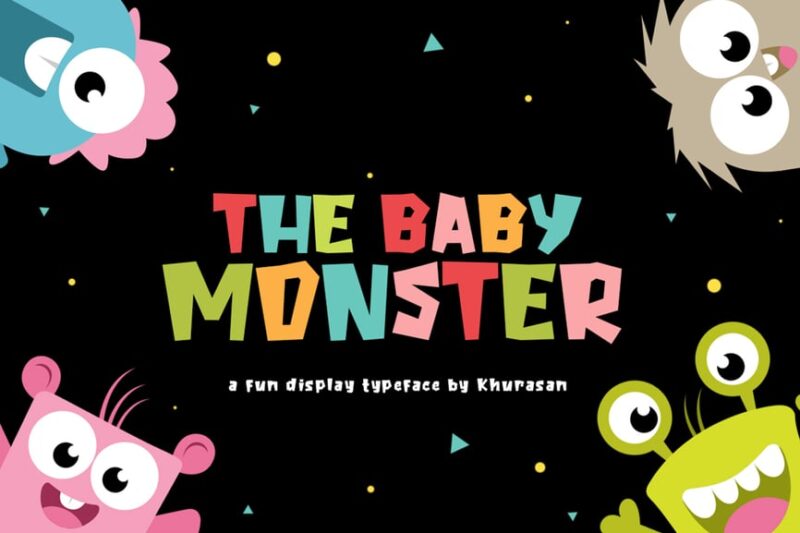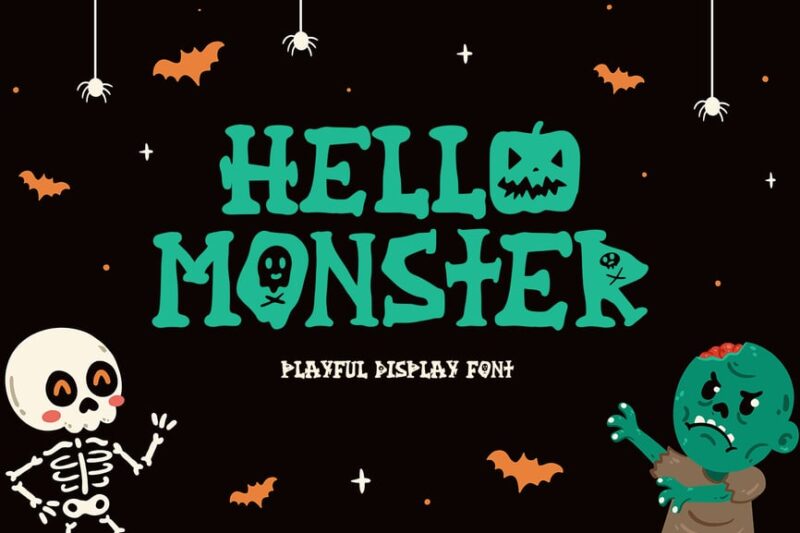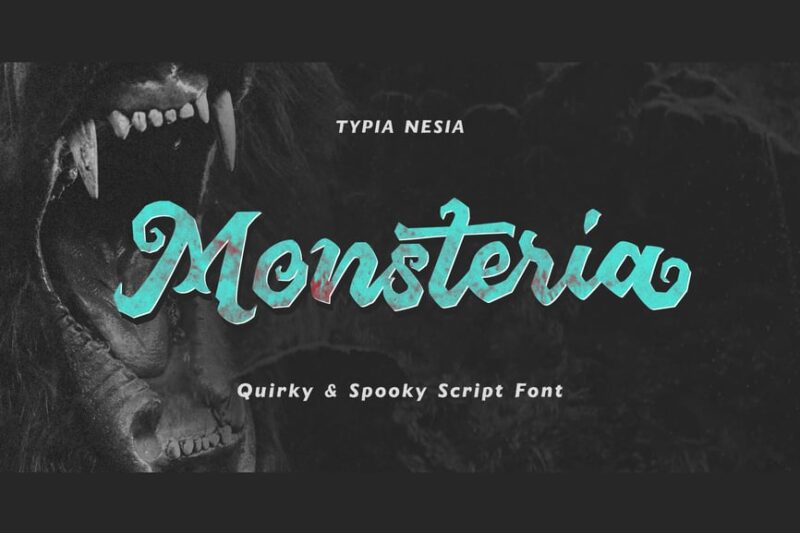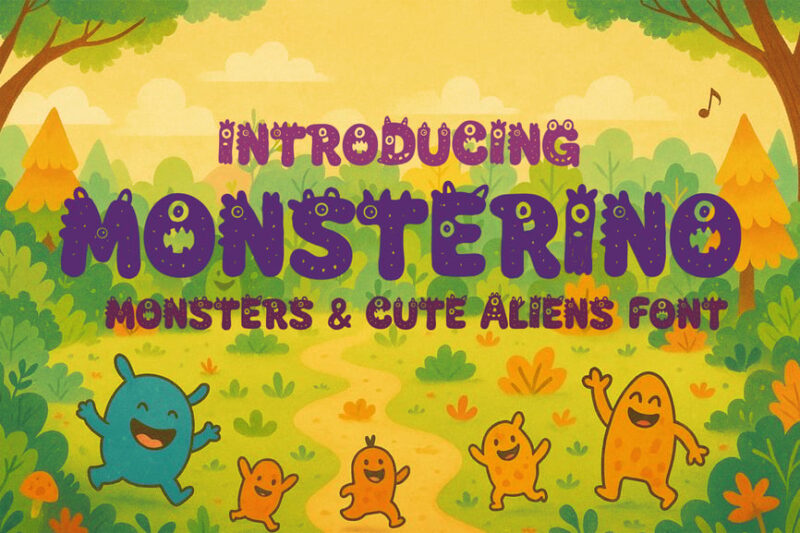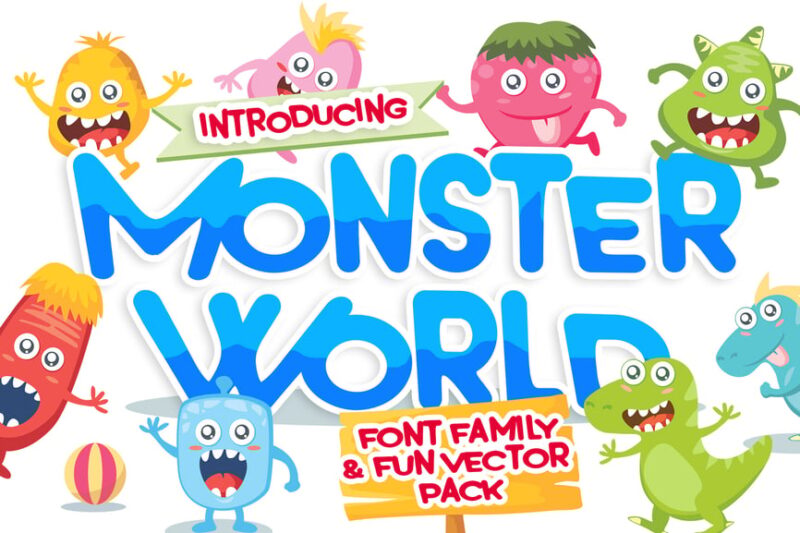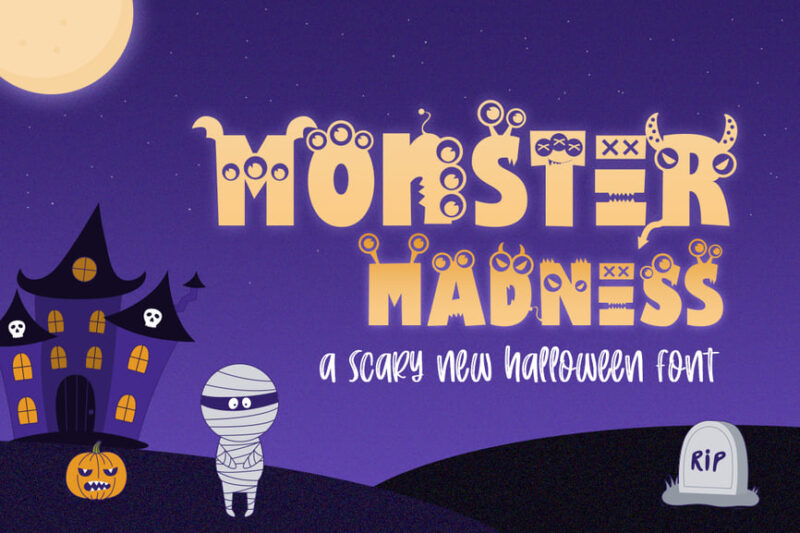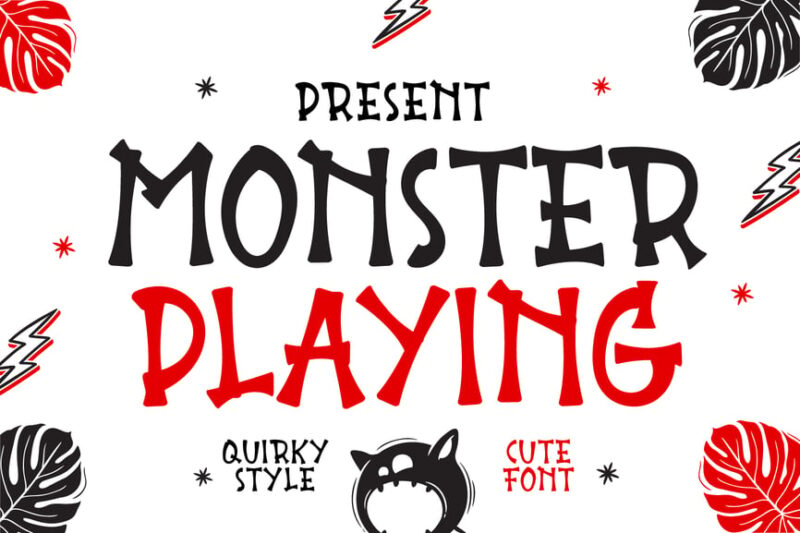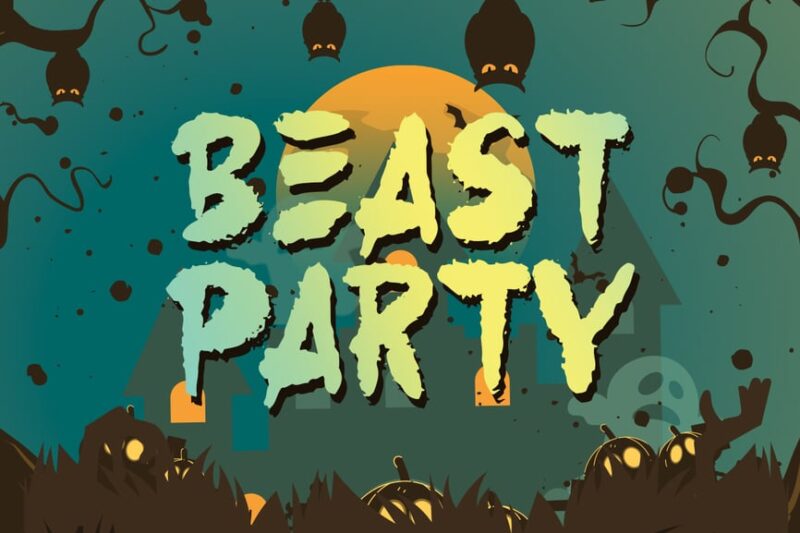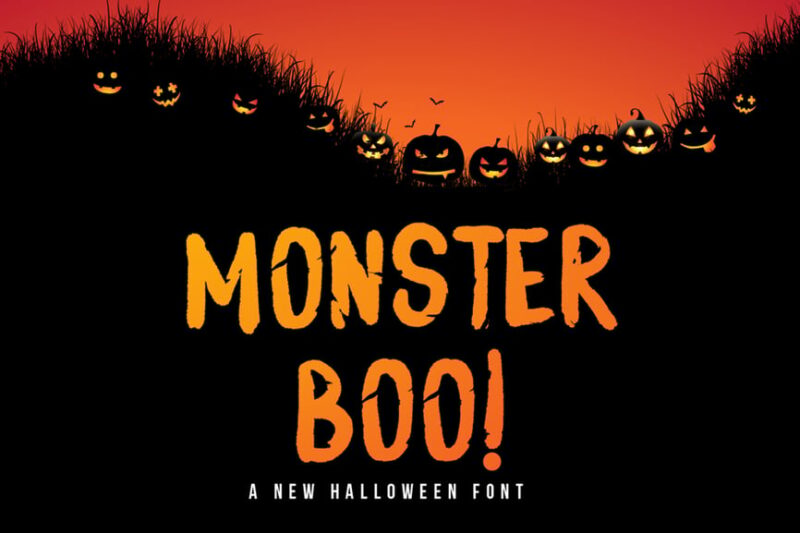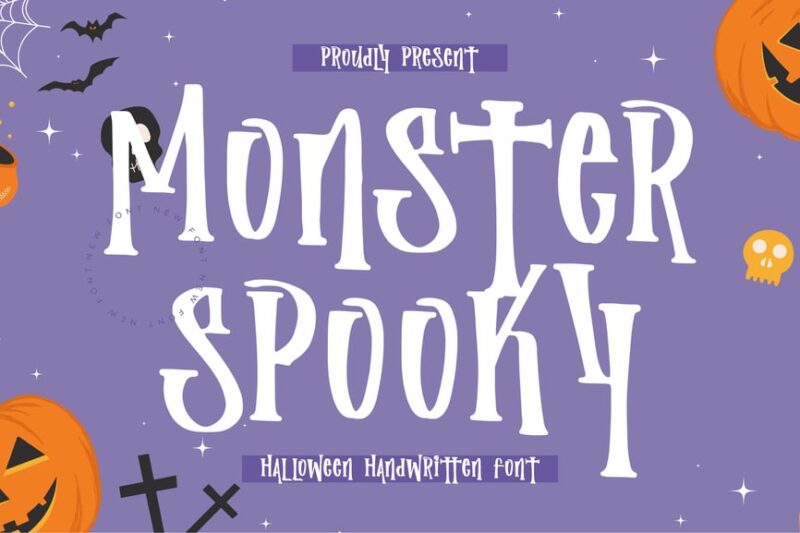
The shadows are lengthening, and somewhere in the depths of your font library, something sinister is stirring. Monster fonts have crawled out from their typographic crypts to dominate everything from streaming horror series to immersive haunted attractions, proving that great design doesn’t just communicate – it terrifies, thrills, and leaves lasting impressions burned into memory.
These aren’t your grandmother’s Gothic letters. Today’s monster typography pulses with digital blood, writhes with organic textures, and shapeshifts between elegance and chaos in ways that would make classic horror masters weep with envy. They’ve evolved beyond simple Halloween fonts into sophisticated tools for brands that dare to embrace the darkness.
What makes monster fonts so irresistibly powerful is their ability to tap into our primal fears while simultaneously drawing us closer. They whisper promises of forbidden knowledge, hint at ancient curses, and suggest that behind every beautifully rendered letter lurk secrets too terrible – and too fascinating – to ignore.
Ready to unleash some typographic nightmares? We’re about to explore the most hauntingly beautiful monster fonts that are currently terrorizing design trends. Fair warning: once you see what these fonts can do, there’s no going back to boring typography!
The Most Spine-Chilling Monster Fonts of 2026
Let’s face it – not all monster fonts are created equally terrifying. Some whisper menacingly in the shadows, while others scream bloody murder from the rooftops. I’ve compiled a list of the most bone-chilling, absolutely monstrous fonts that are guaranteed to give your designs that perfect dose of horror-inspired personality.
Monster Mash
Monster Mash is a quirky and playful font that combines dinosaur and monster themes. It’s perfect for creating whimsical and fun designs, especially for children’s products or Halloween-themed projects.
The Baby Monster
The Baby Monster is a decorative sans-serif font with a mischievous and cute appeal. It’s ideal for designs targeting young audiences or for creating a lighthearted, slightly spooky atmosphere in graphic projects.
Horror Crazy Monster Fonts
This font set offers a range of scary and Halloween-inspired typefaces. Their lightning-like shapes are perfect for creating eerie and spine-chilling designs, these fonts are ideal for horror-themed projects, Halloween promotions, or any design requiring a spooky touch.
Hello Monster
Hello Monster is a decorative font that blends magical and enchanted elements. It’s perfect for creating whimsical, fantasy-inspired designs with a slightly monstrous twist, ideal for children’s books or magical-themed projects.
Monster Inside
Monster Inside is a distressed font that blends monstrous elements with a torn and ragged aesthetic. It’s ideal for creating chilling designs with a twist, perfect for horror projects or eerie, cold-inspired graphics.
Monstarize
Monstarize is a horror-inspired serif font designed for gaming and spooky themes. It combines elements of classic serif typography with monstrous details, making it perfect for game titles, horror movie posters, or any design requiring a blend of sophistication and terror.
Monsteria Spooky Script
Monsteria Spooky Script is a handwritten font that combines elements of death and mystery. Its flowing, eerie style makes it perfect for creating atmospheric designs for ghost stories, mystery novels, or spooky event invitations.
Monstermeld
Monstermeld is a decorative font that blends Halloween and evil themes. Its unique, melded style is perfect for creating eye-catching designs for horror events, scary movie titles, or any project requiring a bold, monstrous typeface.
Monster Cubby Font
Monster Cubby Font is a playful, decorative typeface that combines a bubbly feel with monster elements like horns or teeth. It’s ideal for creating fun, quirky designs for children’s menus, food-related Halloween events, or any project requiring a lighthearted, monstrous touch.
Monsterino Kid Font
Monsterino Kid Font is a cute and playful decorative typeface designed for children’s themes. It’s perfect for creating friendly monster characters, designing kids’ book covers, or adding a touch of whimsy to child-oriented projects.
Wicked Destiny
Wicked Destiny is a dripping font that embodies Halloween and scary themes. Its intricate, spooky design makes it ideal for creating atmospheric horror designs, eerie event posters, or any project requiring a touch of wickedness.
Monster World font & Fun Vector Pack
This package includes a monster-themed font and a set of fun vector illustrations. It’s perfect for creating cohesive, playful designs for children’s products, monster-themed events, or any project requiring a complete monster world aesthetic.
So experiment with these spine-chilling monster fonts in your own projects. Used thoughtfully, they create unforgettable designs that are guaranteed to raise goosebumps and leave lasting impressions.